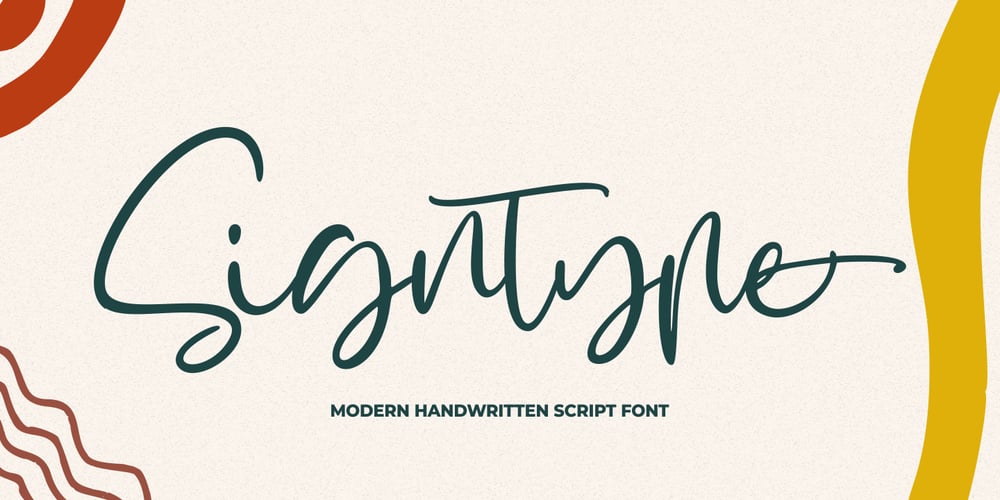
Signtype Font Family was designed by Good Java and published by Good Java Studio. Signtype contains 1 styles and family package options. Signtype Modern Script font is a natural & modern handwritten font. It’s perfect for logo, invitation, stationery, wedding designs, social media posts, advertisements, product packaging, product designs, label, photography, watermark, special events or anything. This font includes ligatures and also Multilingual support. – PUA Encoded open – Support for Adobe Illustrator, Corel Draw, Indesign or Adobe Photoshop – Support for MAC or WINDOWS